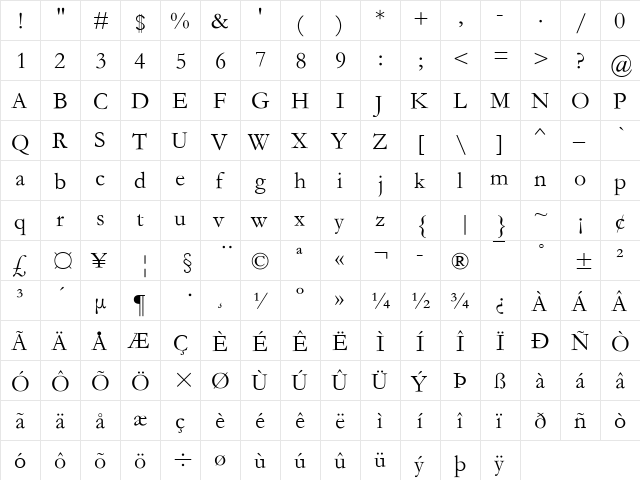
STFangsong Regular
Design Context for STFangsong Typeface
STFangsong is a composed and adaptable typeface that performs quietly and consistently across a wide range of design contexts.